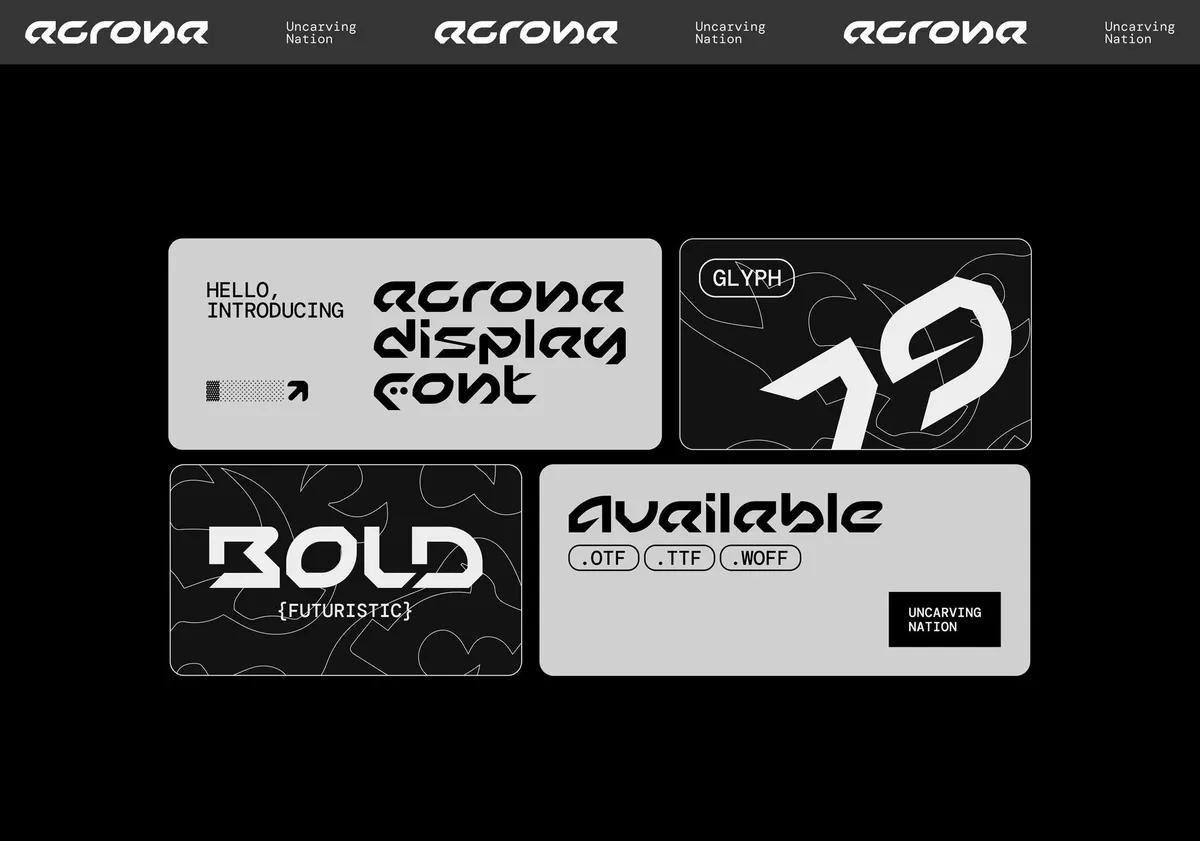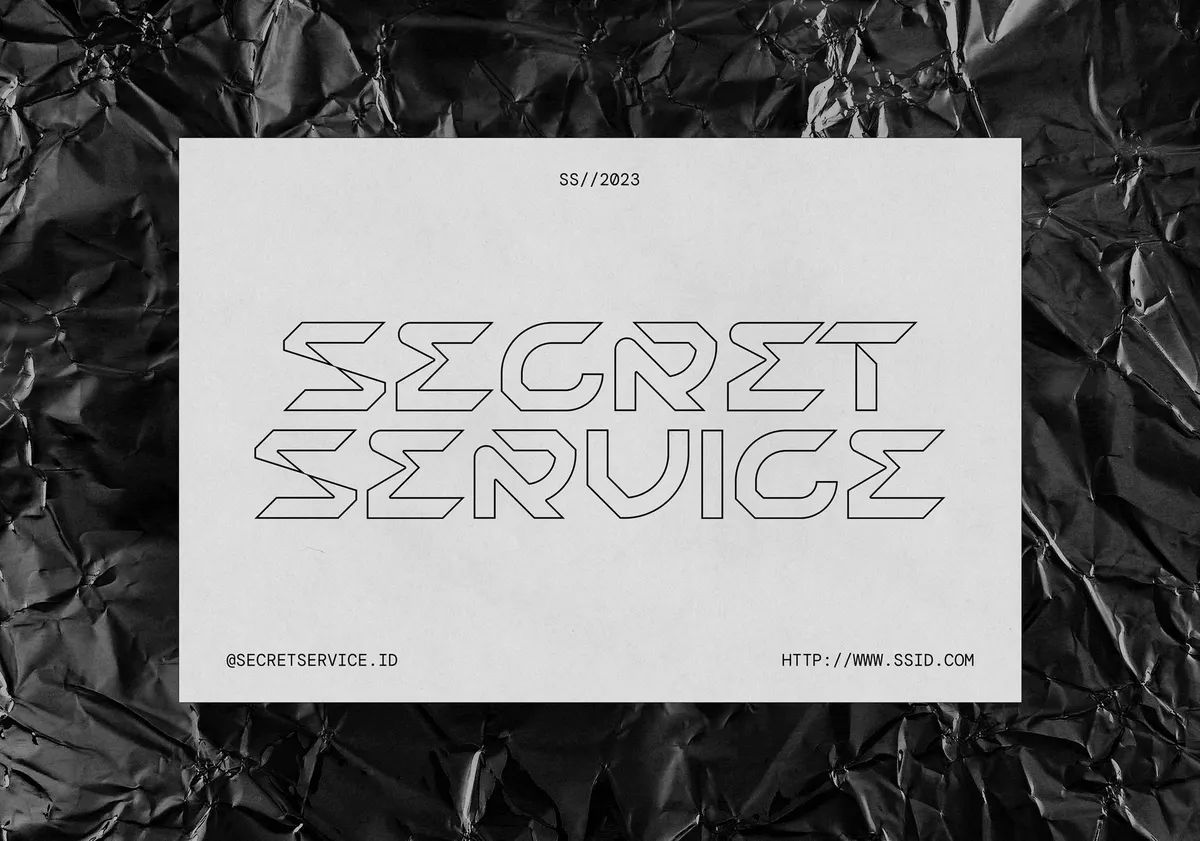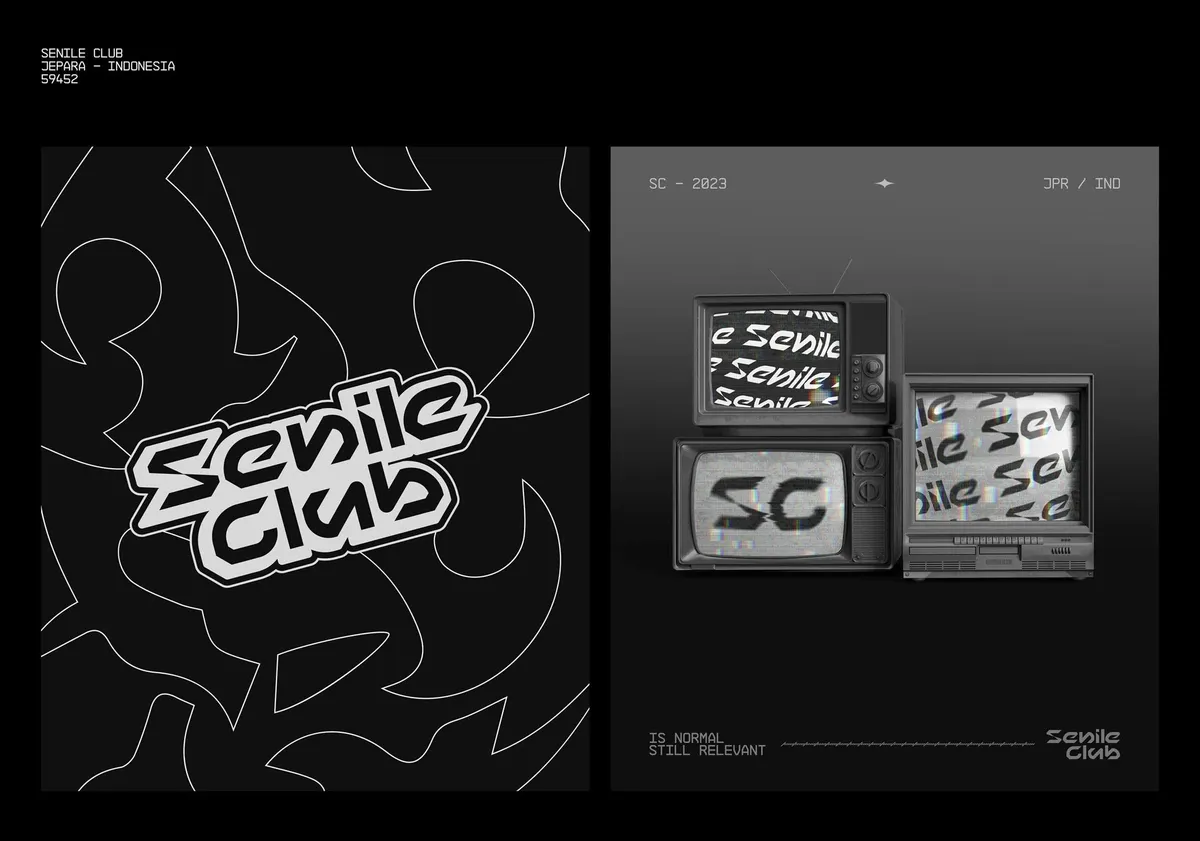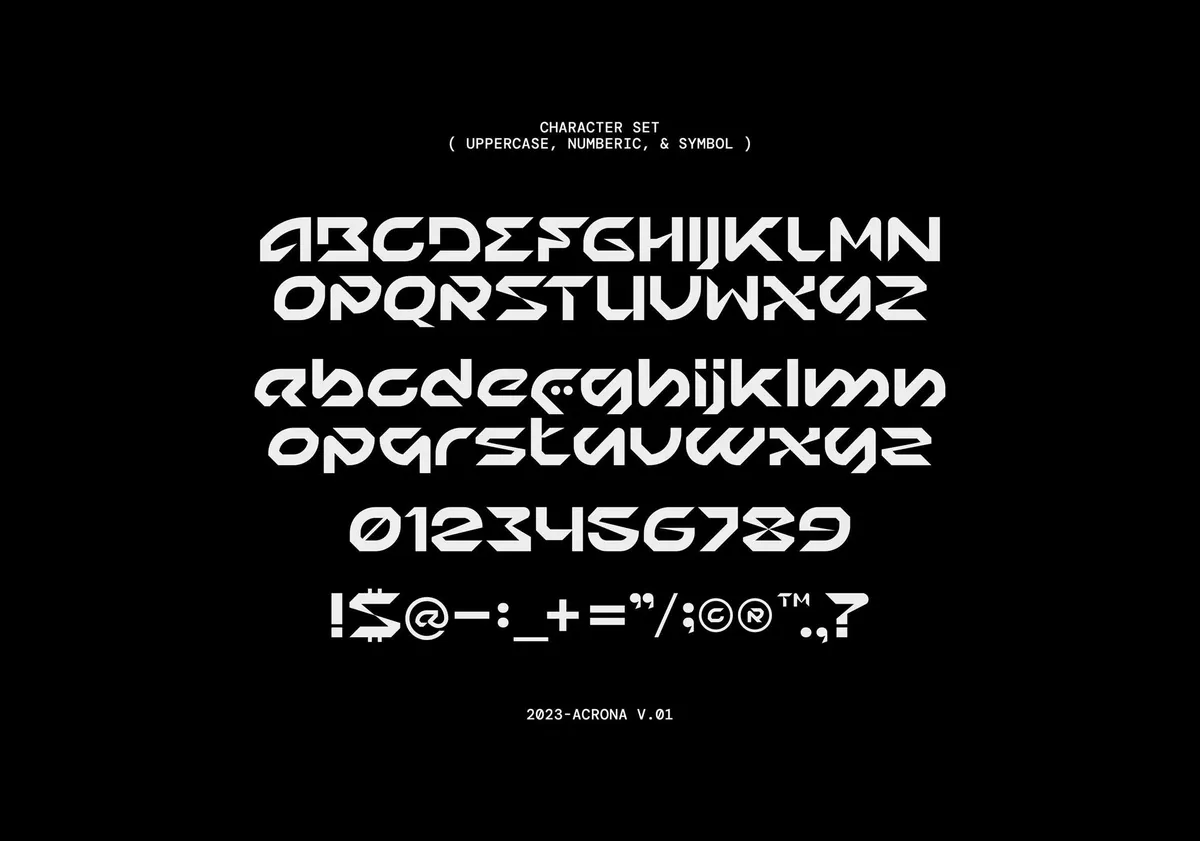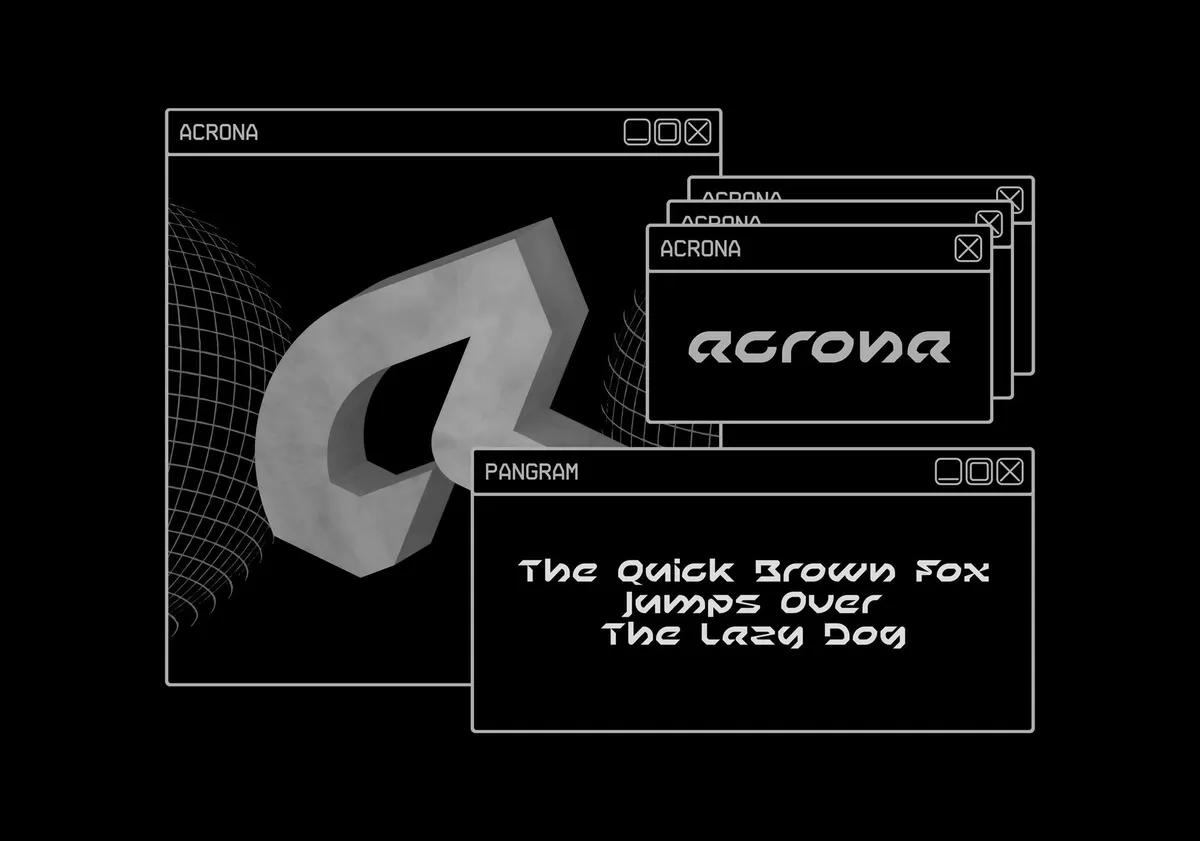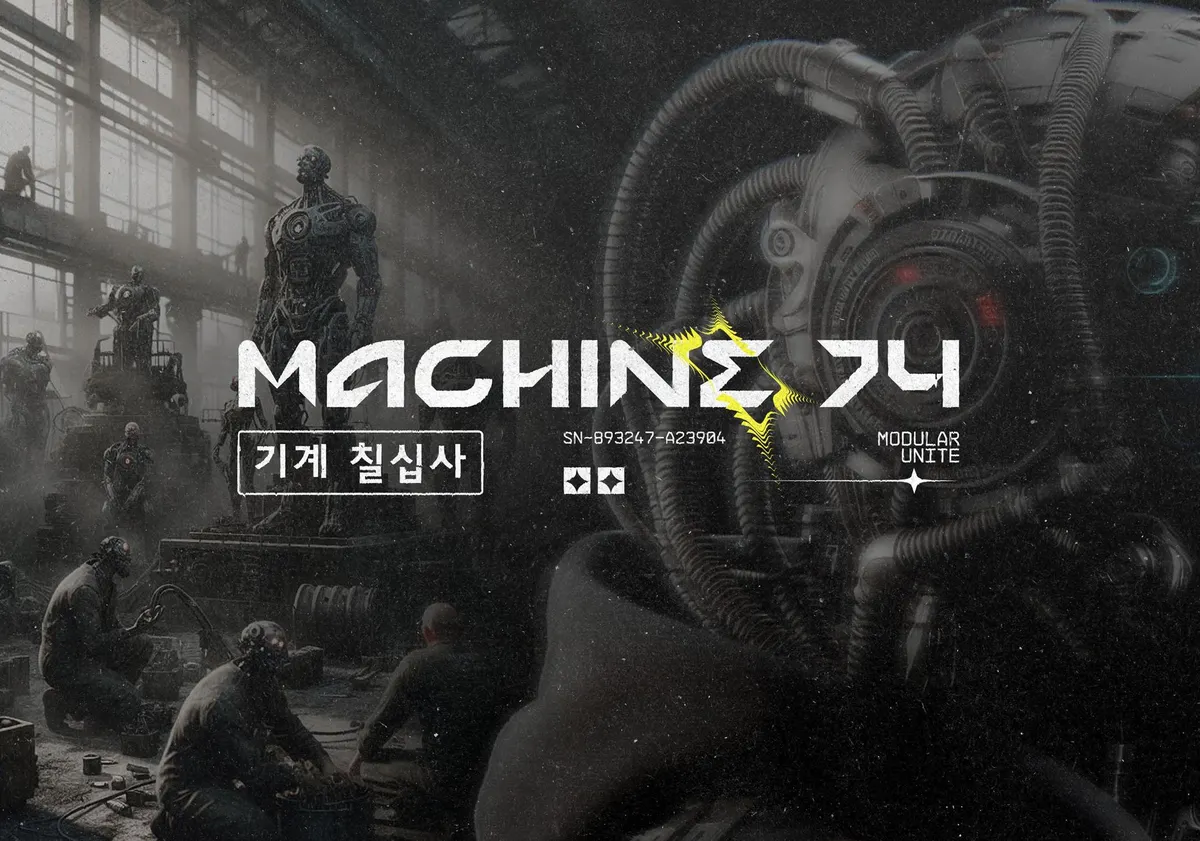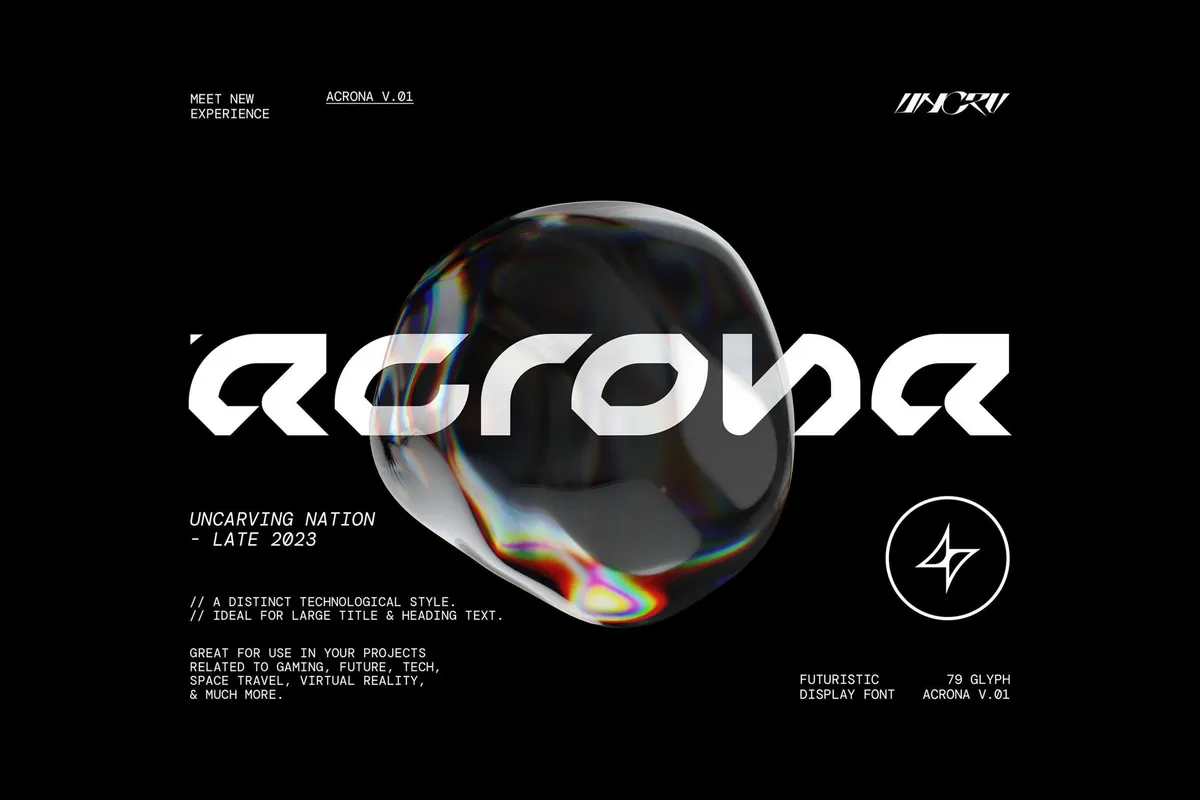
Acrona Display Font
Acrona
Acrona bears a sharp, coded geometry directly from the orbit of sci-fi UI design and early-2000s glitch futurism. The characters feel engineered with angled cuts, modular curves, and minimal contrast, like signage meant for a deep-space terminal or an underground synthwave release.
The font is perfect for titles on game splash screens, virtual reality platforms, vaporwave album covers, speculative design decks, cyberpunk posters, or augmented-reality apps. Includes uppercase, lowercase, numerals, punctuation, and symbol glyphs.